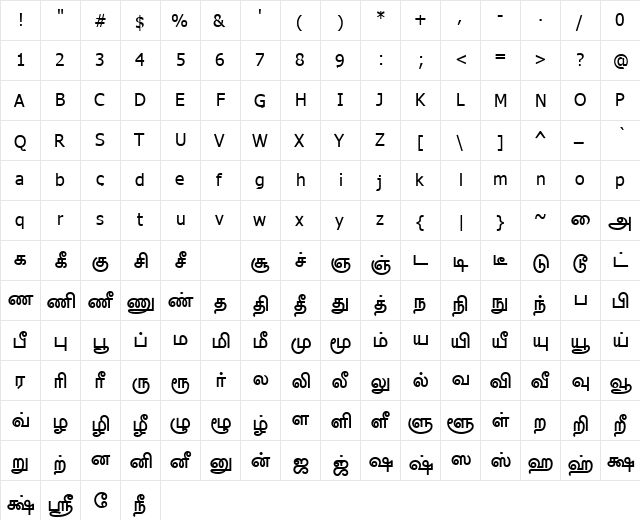
WebTamil Normal Font Preview
WebTamil Normal
Design Context for WebTamil Typeface
WebTamil takes a measured approach to typography — its balanced proportions and neutral character make it a reliable workhorse for both digital and print work.